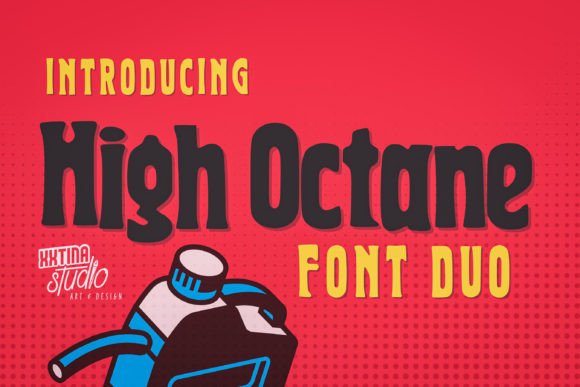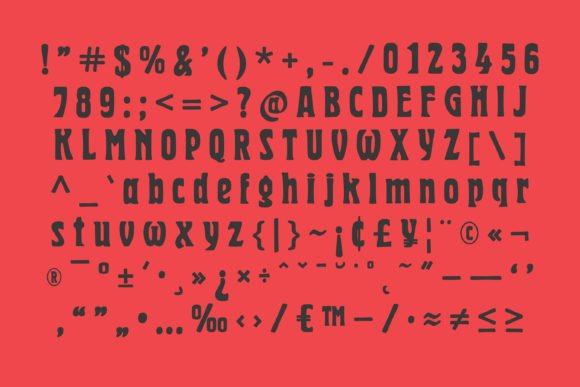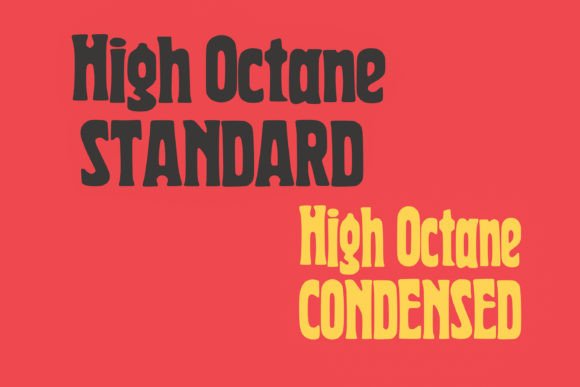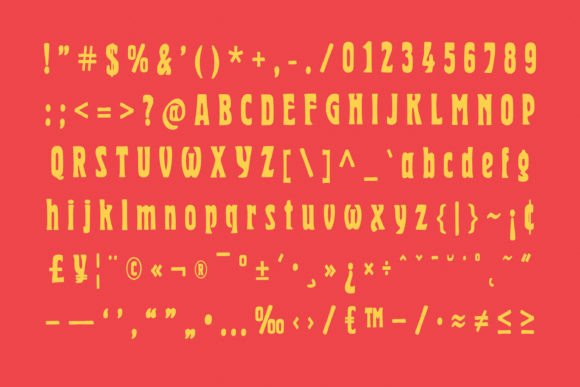
The Ultimate Display Font: High Octane
Have you ever been in the middle of a design project, and suddenly, you’re stuck on finding the perfect font? I recall a recent experience where I was working on a branding project for a trendy coffee shop. The client wanted a logo that was both modern and eye-catching, but I was struggling to find a font that fit the bill. That’s when I stumbled upon High Octane, a cool and fresh display font that instantly caught my attention.
First Impressions: A Review of High Octane
High Octane is a game-changer for designers, crafters, and creative hobbyists looking to elevate their designs. Here’s what I love about it:
• ✨ Unique and beautiful touch to every letter, making your design come alive!
• ✅ Perfect for creating eye-catching logos, branding, and quotes.
• ⚡️ Fresh and modern aesthetic that’s sure to grab attention.
• 🎨 Highly versatile and can be used for various design projects.
While High Octane is an excellent font, it’s not without its quirks. Here are a few things to keep in mind:
• 🤔 Some letters may require manual kerning for optimal spacing.
• ⚠️ Limited use of lowercase letters, but the uppercase letters are where it’s at!
High Octane was designed with the intention of creating a font that’s both fresh and modern. The designer wanted to craft a font that’s perfect for grabbing attention and making a statement. With its unique and beautiful touch, High Octane is sure to inspire your next design project.
What type of projects is High Octane best suited for? High Octane is perfect for creating eye-catching logos, branding, and quotes.
Is High Octane available in different weights or styles? Currently, High Octane is available in a single weight, but it’s versatile enough to be used in various design contexts.